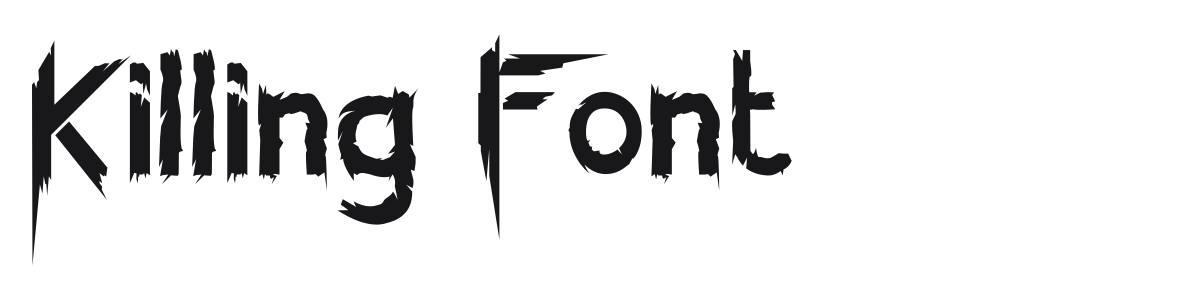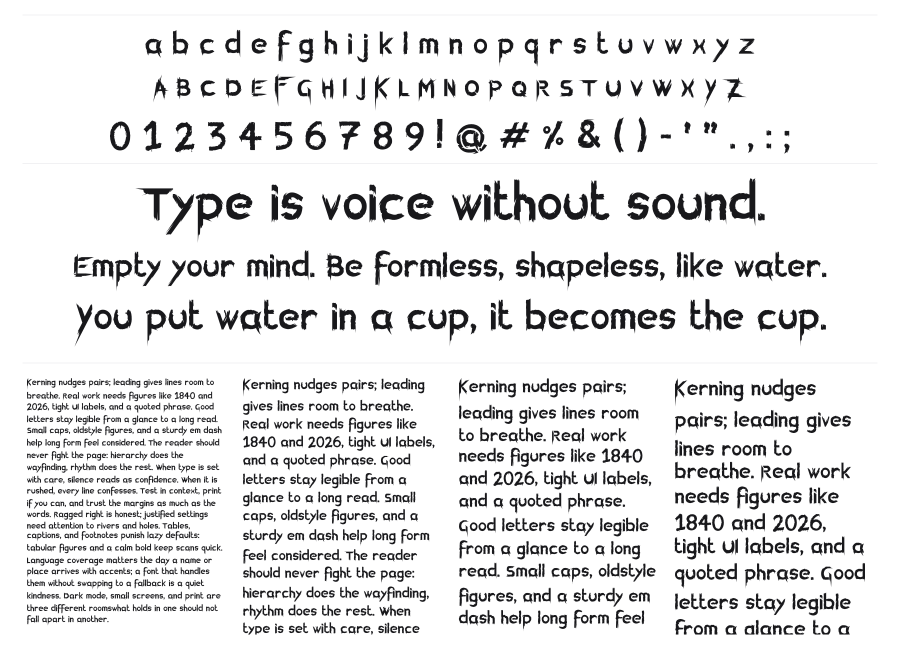
Killing Font
by briZoft
Killing Font is a fan-made display typeface inspired by the Killing Floor 2 video game, built around a distressed serif structure with aggressively eroded strokes and splintered terminals. Every character looks battle-worn, evoking torn flesh, scratched metal, or shredded signage. It works at large sizes where the texture reads clearly against dark or grunge backgrounds.